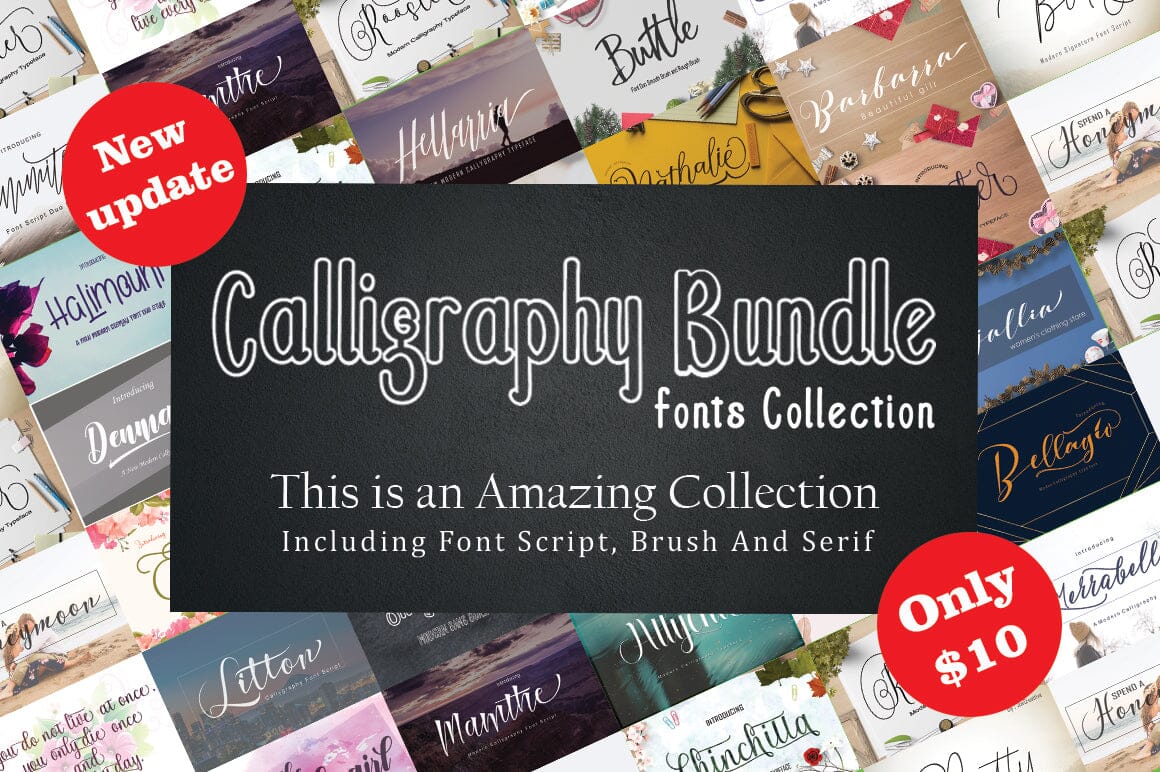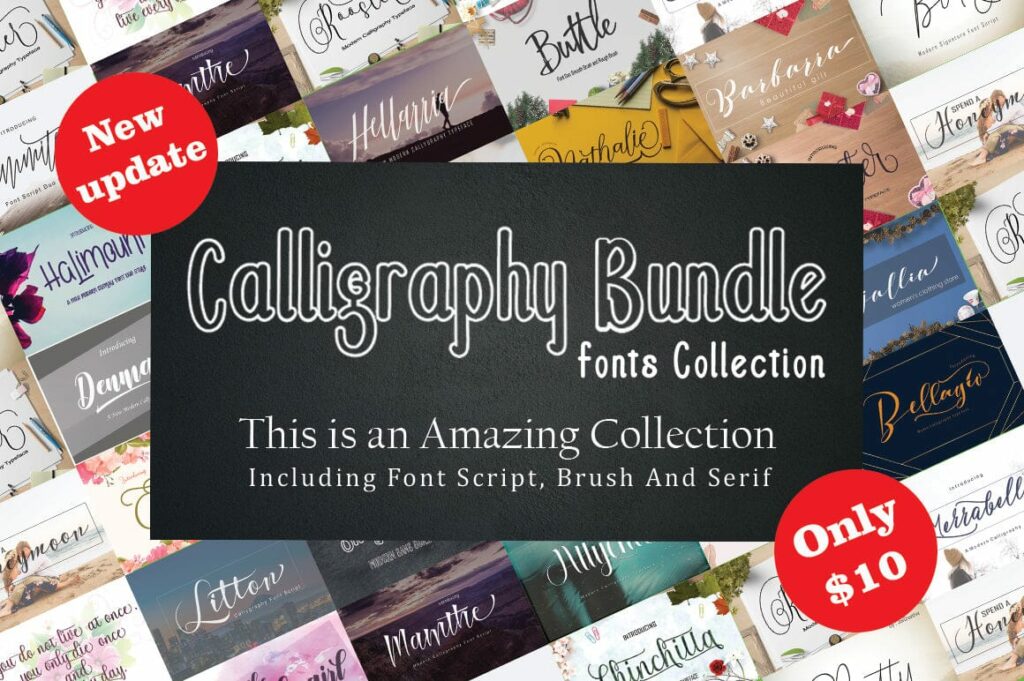
Collection of Calligraphy Fonts Collection. New update!
Collection of Calligraphy Fonts Collection. New update! Best selling font, has 28 unique font items, This pack gets all 28 fonts for a super cheap price of only $5, for a limited time. Don’t miss it, get it today! hand drawn fonts in the round of amazing offers. Blending classic with modern, this stunning brush font is perfect for everything from wedding invitations to logos to T-shirts! It includes many OpenType features such as swipes, Initial and Terminal Forms, and standard binders, and the possibilities are endless. В With a wide range of OpenType features including Standard Ligatures, Alternate Styles, and Style Sets, your latest project will really stand out in a completely natural and elegant script style. В Also supported is PUA encoded. Access Silhouette Studio compatible font characters, Cricut Design Space. Simply copy and paste alternative characters using Character Map (Windows), Nexus Font (Windows), Font Book (Mac) or a software program such as PopChar (for Windows and Mac). В Create unlimited products to sell, convert them in web fonts for unlimited page views, or use them in your freelance projects. Whatever your needs, this great package has it covered! В В В В В В В В В thanks May all our activities always be fun.